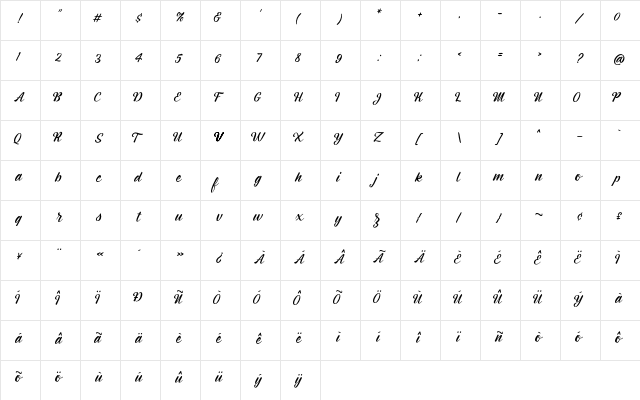
Montagne Script Free Demo Regular
Design Context for Montagne Script Free Demo Typeface
Montagne Script Free Demo flows with the natural rhythm of handwritten lettering, making it ideal for designs that call for warmth and personal expression.
Font Pairing: Combine Montagne Script Free Demo with a simple geometric sans for maximum contrast — the tension between flowing curves and clean structure is a classic typographic pairing.
Pro Tip: Pair Montagne Script Free Demo with a clean sans-serif for supporting text. The contrast between fluid script and geometric structure creates an elegant typographic hierarchy.